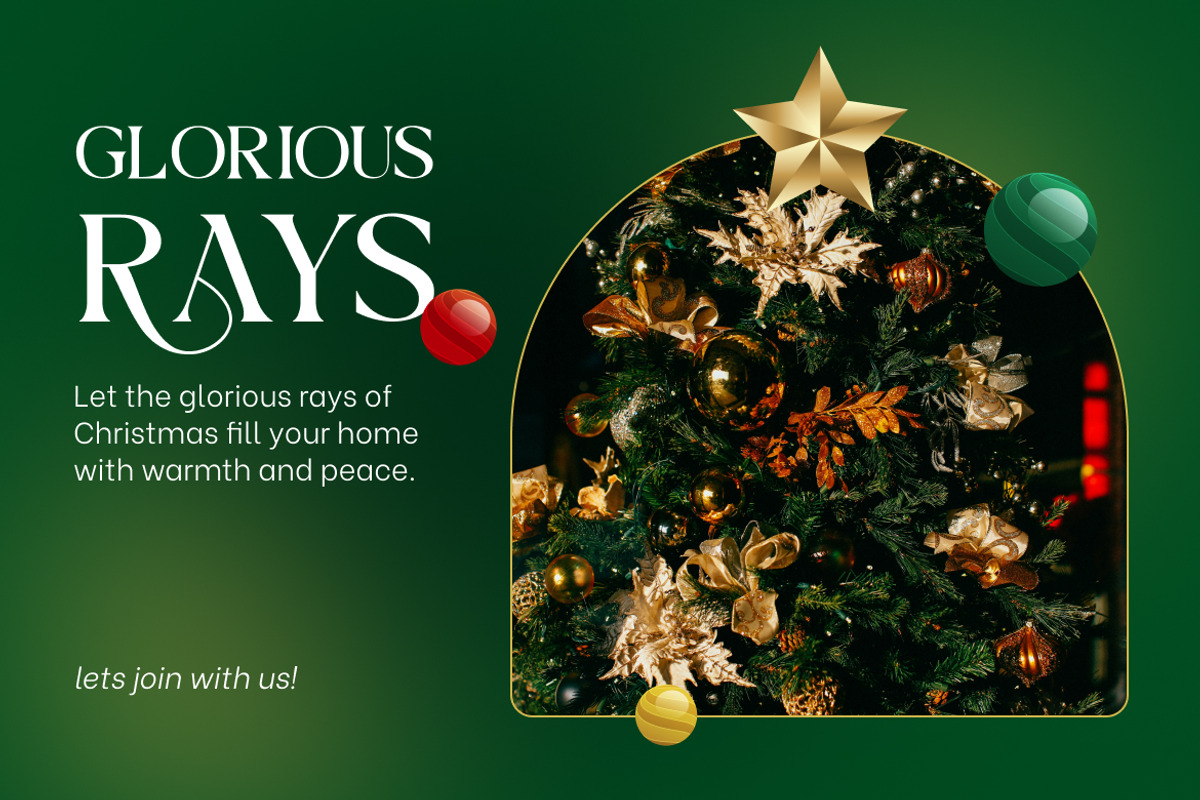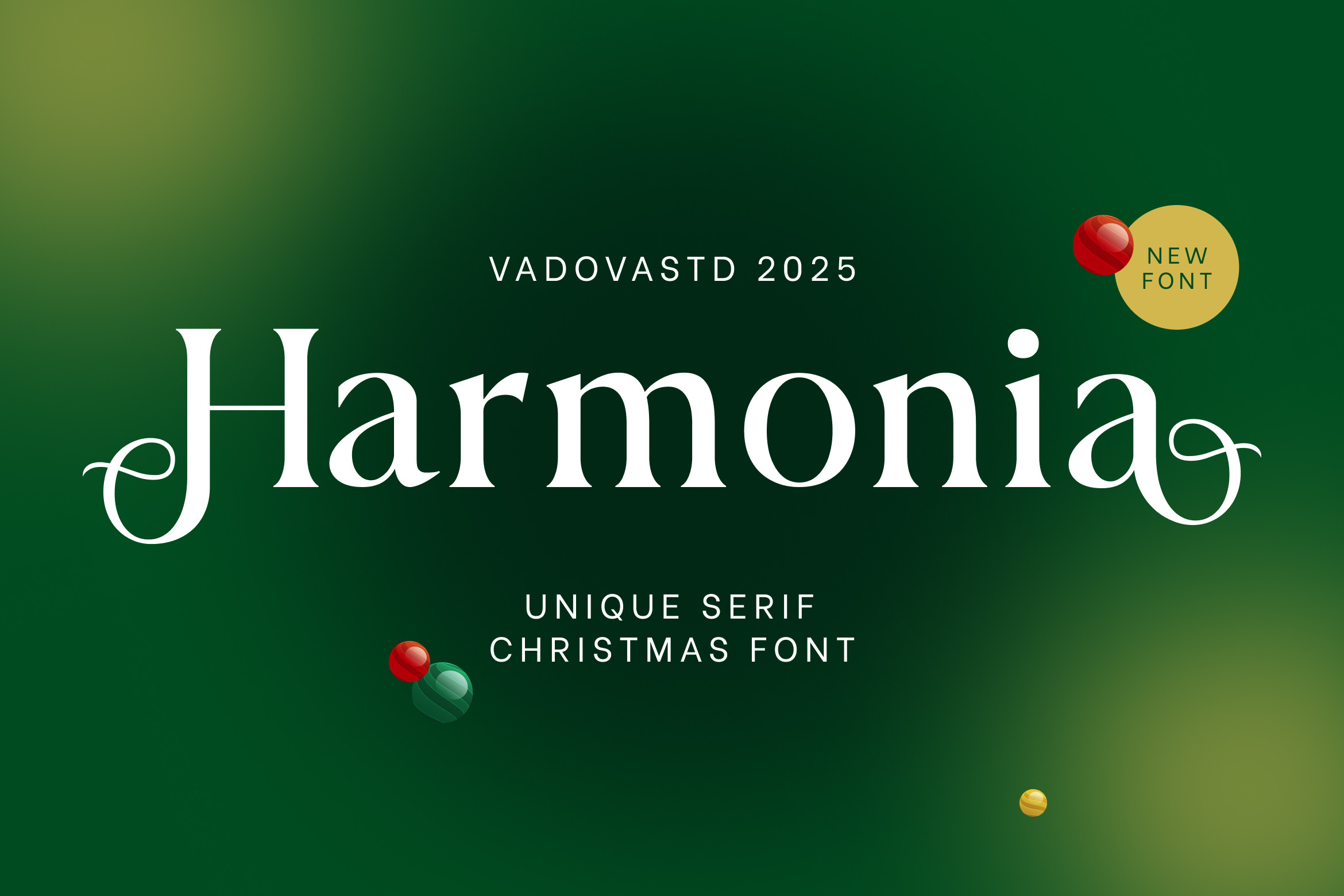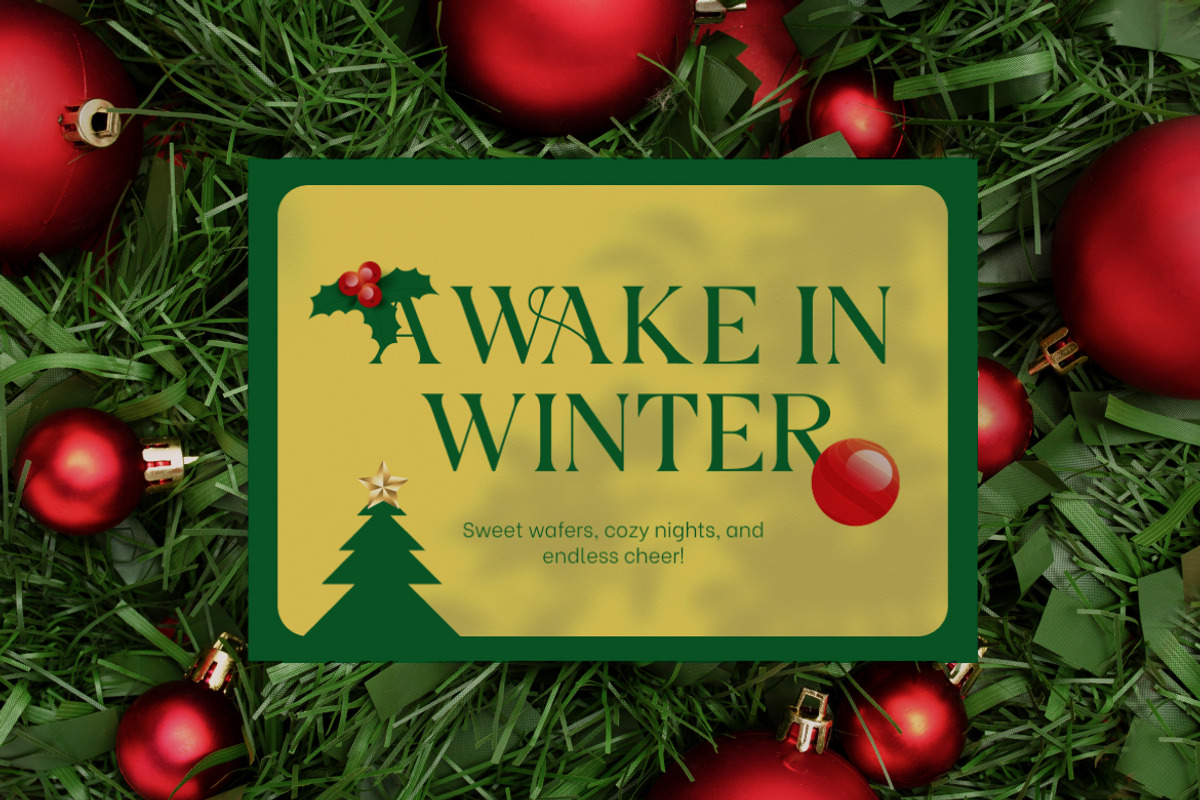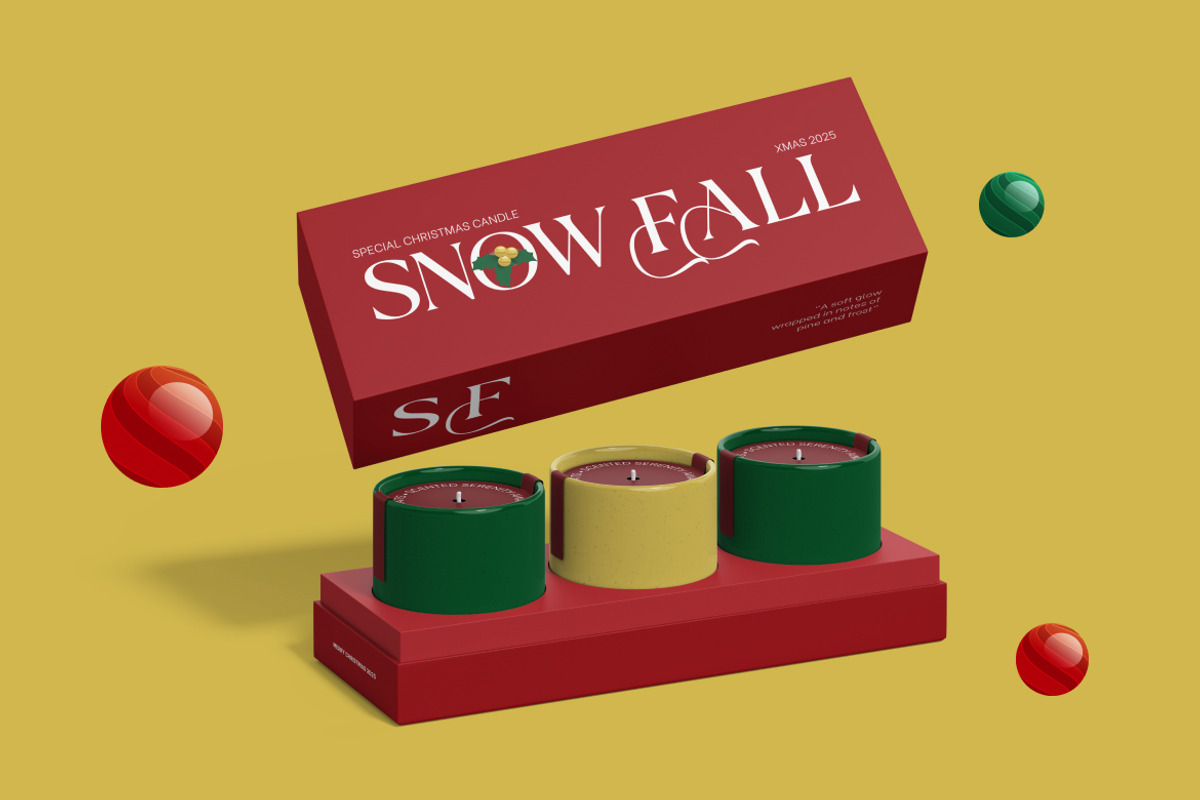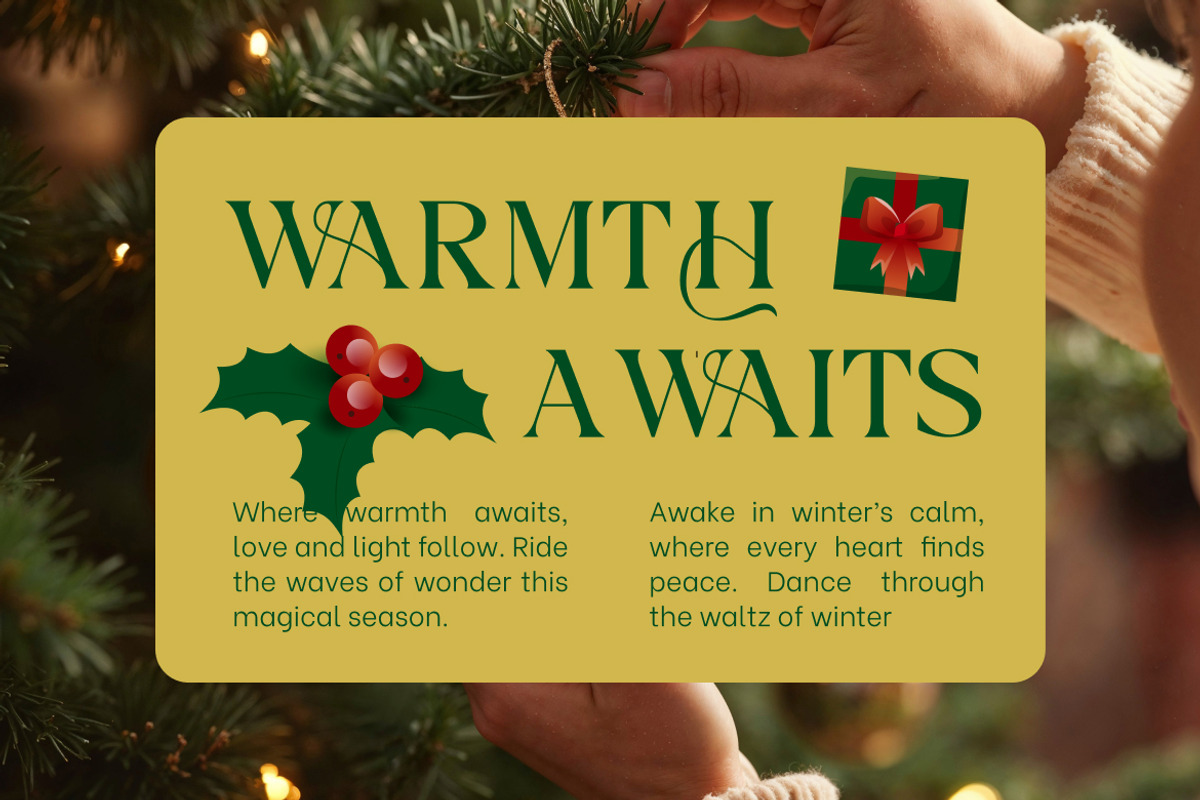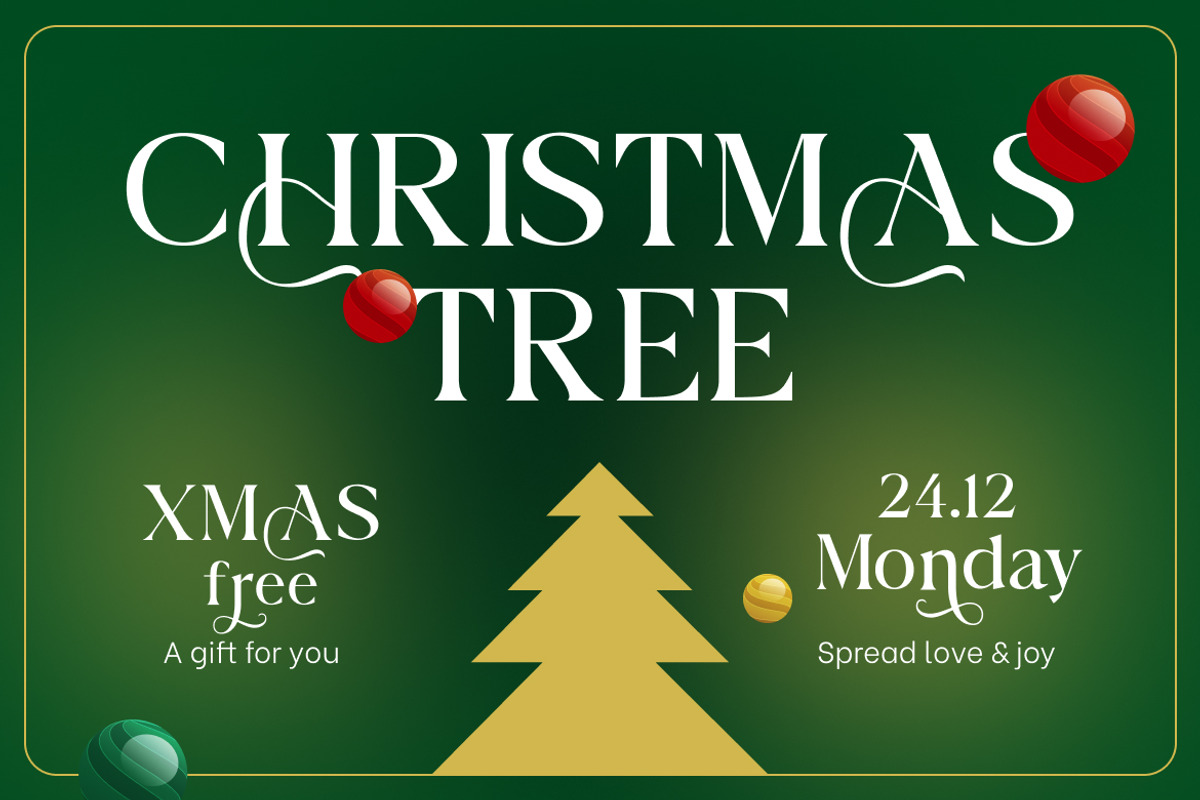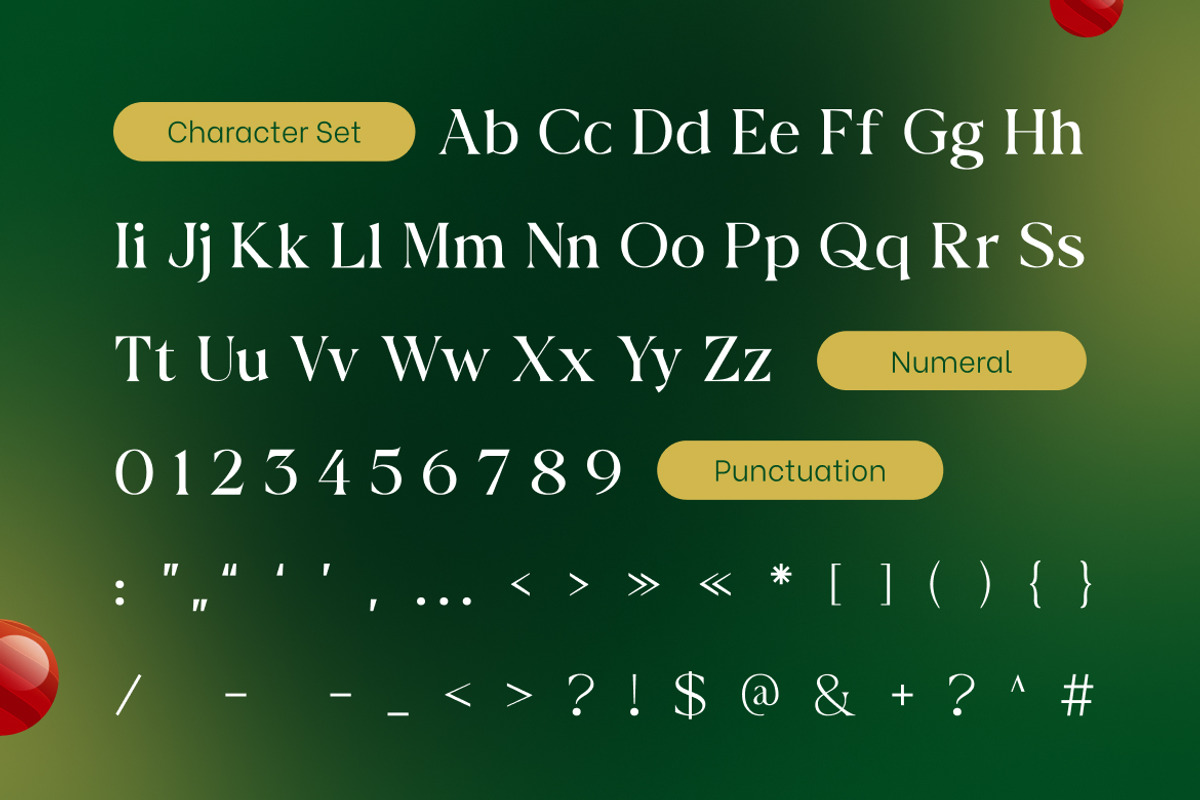
Harmonia Serif Christmas Font
Harmonia is a refined serif font with festive flair, designed to bring elegance and joy to the holiday season. With its delicate curves, high contrast strokes, and playful Christmas-inspired alternates, Harmonia blends classic type design with a modern twist of celebration. It’s the perfect font for greeting cards, invitations, packaging, event promotions, and upscale holiday branding.
The signature charm of Harmonia lies in its expressive details whimsical swashes and stylized letterforms that subtly echo the shapes of ornaments, garlands, and festive decorations. This balance of sophistication and seasonal magic makes Harmonia suitable for both formal and cheerful holiday designs.
With full uppercase and lowercase sets, numerals, punctuation, and multilingual support, this font offers complete creative flexibility. Whether you're designing for print, digital, or social media, Harmonia stands out with poise and seasonal charm.
- Elegant serif with festive alternate characters
- High contrast strokes with decorative flair
- Full uppercase & lowercase alphabets, numbers, punctuation
- Stylish yet readable — great for headers and logos
- Multilingual support for global holiday projects
- Perfect for Christmas cards, brand promotions, invitations, and packaging
- Subtle Christmas-inspired letter shapes for unique visual identity
- Great balance between formality and holiday warmth
Relevance and Use Cases is for Christmas branding, holiday greeting cards, event invitations, packaging design, festive promotions, seasonal menus, gift labels, classy flyers, social media graphics, product branding, elegant logos, winter sale ads, holiday catalogues, wrapping paper, ornament labels, Christmas journals, upscale stationery
Make every message feel magical with Harmonia where elegance meets Christmas spirit.